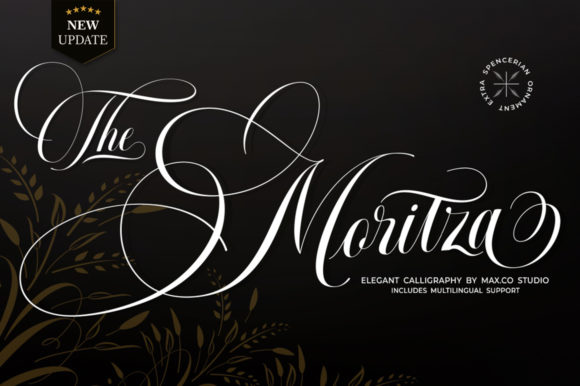
Imagine the Moritza Font, a script font family that artfully transforms elegance into a mesmerizing handwritten masterpiece. Crafted by the ingenious Max.co Studio, Moritza embraces its calligraphic heritage while radiating a modern, refreshing vibe. Its captivating ornaments bring a touch of artistry to any project, inspiring endless creative possibilities. Dive into the world of Moritza and let your imagination soar.
The Moritza Font is more than just a typeface; it's an artistic expression that awaits your creative touch. Whether you're designing elegant letterheads, captivating titles, or personalized stationery, Moritza's versatility knows no bounds. With its innate charm, it adds a touch of sophistication to any project, capturing the essence of timeless elegance.
Unlock the beauty of your creative vision with Moritza. Its intuitive flow and natural curves invite you to explore a world of lettering possibilities. Embrace the versatility of this font, letting it guide you through a journey of creative exploration. From breathtaking wedding invitations to heartfelt greeting cards, Moritza has the power to transform your words into works of art.
With Moritza, experience the joy of creating in harmony. Its seamless elegance blends seamlessly with your creative spirit, allowing you to effortlessly express your unique style. Let the fluidity of this font carry you away as you explore new realms of design, crafting projects that resonate with individuality and grace.
Step into the realm of Moritza, where artistry and innovation intertwine. This font is more than just a collection of characters; it's an open invitation to explore the depths of your creativity. Embrace the elegance, the versatility, and the timeless beauty of Moritza. Let your imagination run wild as you create projects that captivate and inspire. The Moritza Font is waiting to unleash the magic within you—are you ready to embrace its allure?